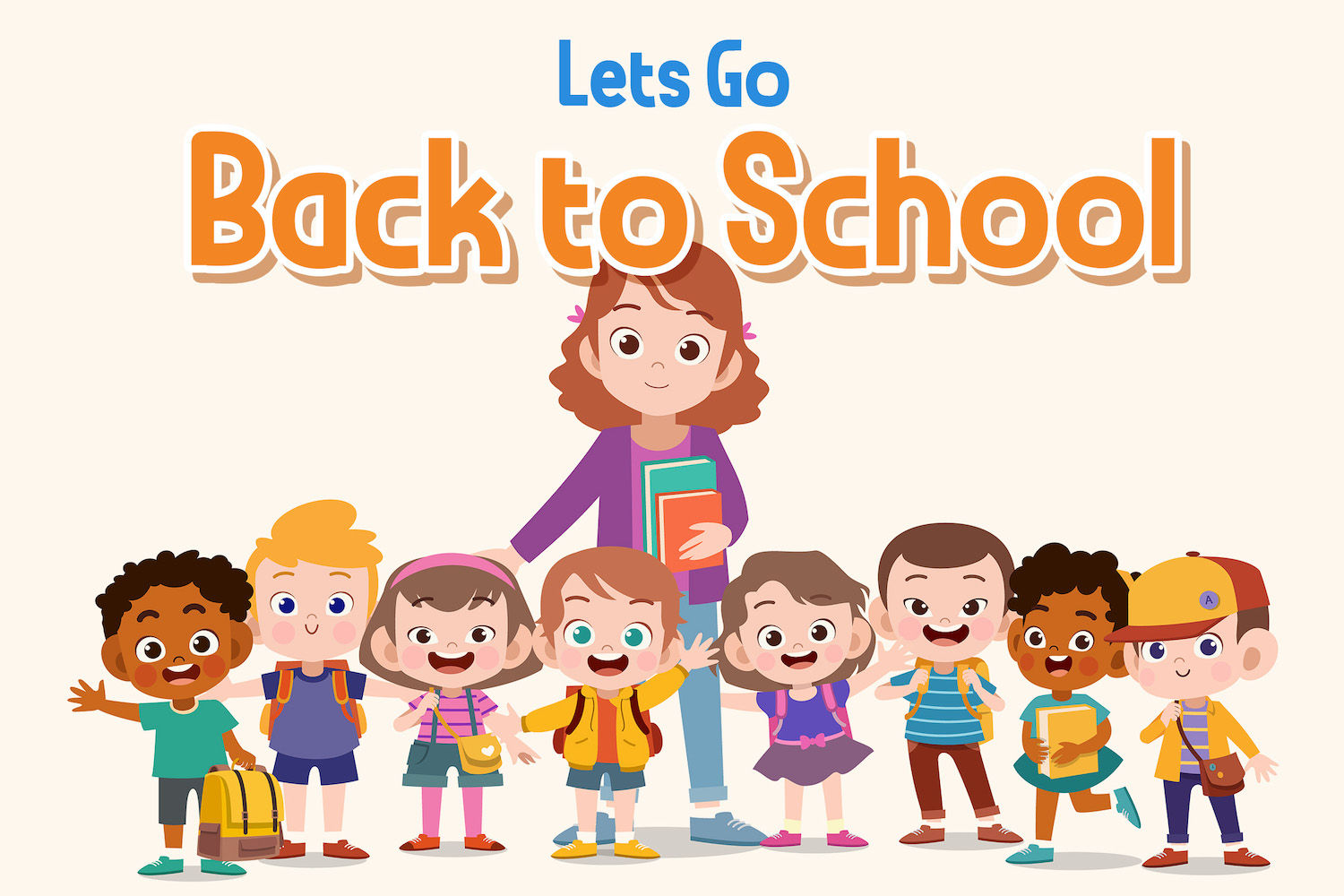
Ronaldi Guje is a playful sans-serif display typeface designed to stay bold and readable at headline sizes. It performs best from 24 pt / 32 px and up, where its chunky strokes, rounded corners, and clean silhouettes hold detail well—especially when used with outlines, shadows, or sticker-style effects.
Readability is strongest in short phrases, titles, and branding lines. The letterforms lean tall and slightly condensed, helping words feel compact and energetic without becoming cramped at large sizes. At smaller sizes (roughly below 14–16 pt / 18–20 px), the heavy weight and tighter internal counters can start to fill in—so it’s not ideal for long paragraphs or dense UI text.
Spacing-wise, the font naturally sits on the tight side, giving designs a punchy “packed” look. Because the TTF file does not include kerning/OpenType layout pairs, some letter combinations (especially in ALL CAPS or with rounded/diagonal shapes) may benefit from a quick manual tracking tweak in your design app (e.g., slightly increasing tracking for long words or tightening specific pairs by hand).
Technically, Ronaldi Guje ships as a single Regular style and includes Basic Latin + Western European (Latin-1) accented characters, along with common punctuation (including smart quotes and an en dash) and a few handy symbols such as €. It’s a solid choice for posters, packaging, stickers, kids-themed graphics, seasonal banners, and social media headers—while its limitations are mainly the single weight and no built-in kerning/features, making it less suited for editorial typography or high-precision typesetting.
For best results, use Ronaldi Guje at display sizes (24–96 pt / 32–128 px) on posters, covers, thumbnails, and product-style graphics. On screen, keep it above ~20 px for cleaner counters, and pair it with a simpler sans serif for body copy to maintain overall readability.